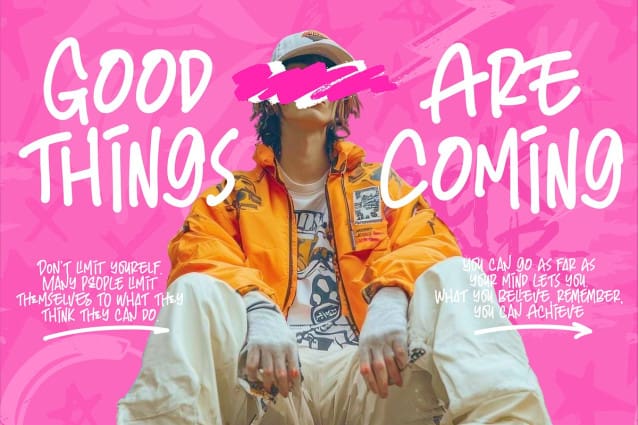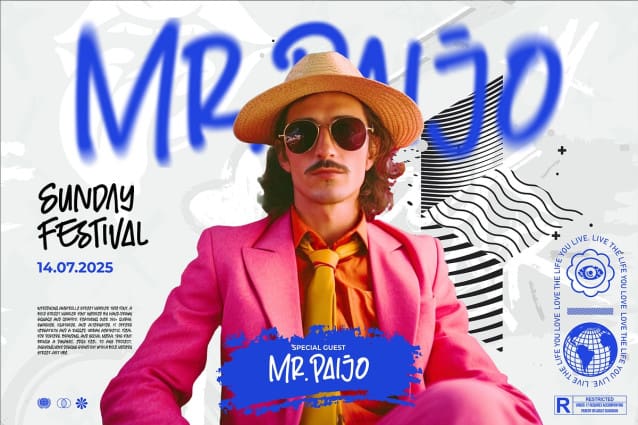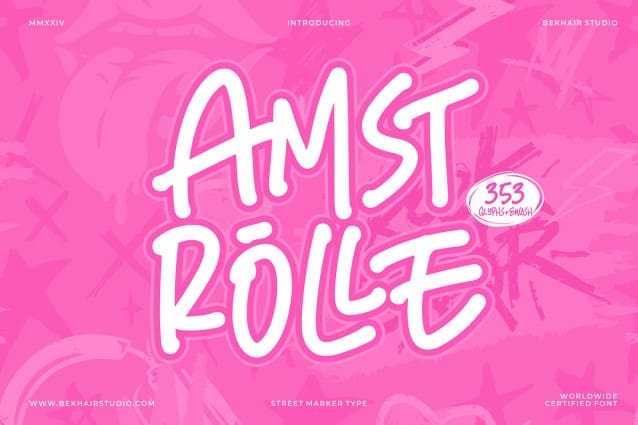
Amstrolle Street Marker Font
Amstrolle Street Marker Font, a bold street marker font inspired by hand-drawn signage and graffiti. Featuring over 350+ glyphs, swashes, ligatures, and alternates, it offers versatility and a rugged, urban aesthetic. Ideal for posters, branding, and social media, this font brings a dynamic, edgy feel to any project, ensuring your designs stand out with a bold, modern street-art vibe.